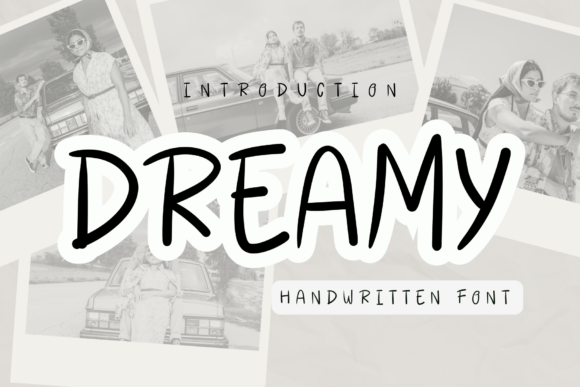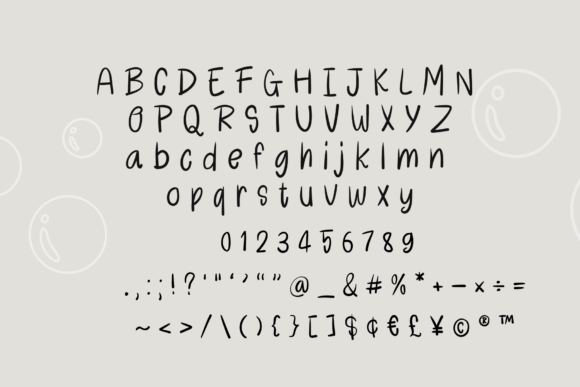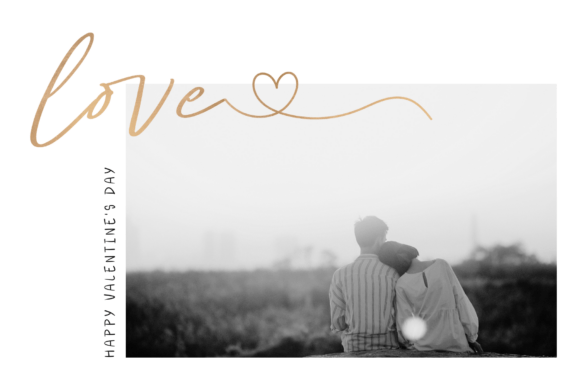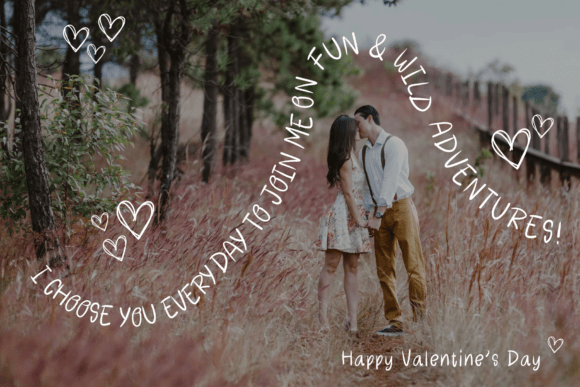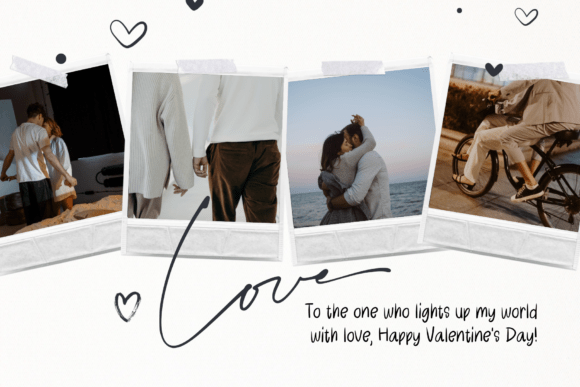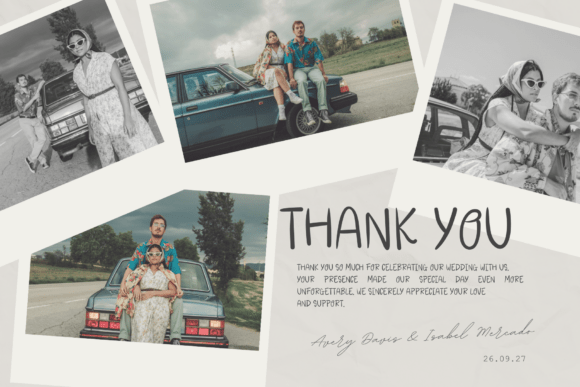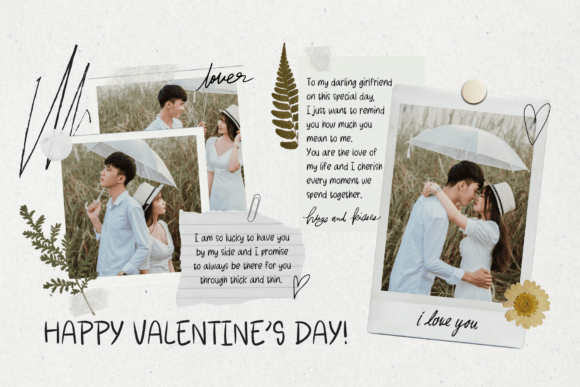
Unleashing Your Creativity with Dreamy Font
Have you ever found yourself sitting in a cozy café, sipping a warm cup of coffee, and letting your imagination run wild? Maybe you’re doodling in a notebook, scribbling down ideas that pop into your head, or simply enjoying the feeling of creating something from scratch. Whatever your creative moment, it’s a feeling we can all relate to – and it’s exactly what the Dreamy Font is designed to capture.
With its elegant, handwritten style, the Dreamy Font is perfect for taking notes, writing a diary, or making greeting cards. But its versatility doesn’t stop there – you can use it for a wide range of designs, from banners and social media posts to mugs, cards, and even shirts. Whether you’re a seasoned designer or just starting out, the Dreamy Font offers a valuable tool for bringing your ideas to life.
Dreamy Font Key Features
- Unique Characteristics: This font features a dreamy, whimsical aesthetic with flowing lines, subtle flourishes, and a touch of elegance, making it perfect for creative projects.
Dreamy Font Review
I’ve had the chance to work with Dreamy Font and I must say, it’s a unique and creative addition to any design project. Here are some of the things that stood out to me:
- ✨ The dreamy, ethereal quality of the font is perfect for designs that need a touch of whimsy. I’ve used it for a client’s branding project and it really helps to evoke the right atmosphere.
- ✨ The font is highly customizable, with a wide range of weights and styles available. This makes it easy to adapt to different design needs.
- ✨ The font is highly legible, even at small sizes. This makes it a great choice for body text or headings.
- ⚠️ The font may not be the best choice for designs that require a lot of precision or technical detail. The dreamy quality of the font can sometimes make it difficult to read.
Overall, I think Dreamy Font is a great choice for designers who want to add a touch of creativity and whimsy to their projects. While it may have some limitations, it’s definitely worth considering for the right project.
For the most effective use of Dreamy Font, pair it with soft, pastel colors and subtle textures. Common use cases include: wedding invitations, baby shower decorations, and social media graphics. Experiment with different font sizes and styles to create visual interest and depth.
Alternatives to Dreamy Font
Great Vibes is a beautiful, elegant script font that works well for titles, headings, and quotes. It’s ideal for creating a sense of sophistication and luxury. Great Vibes has a similar dreamy feel to Dreamy Font, but with a more refined and polished look.
Carolyna Pro is a modern script font that’s perfect for creating a sense of whimsy and playfulness. It’s great for use in branding, packaging, and advertising. While it has a similar flowing feel to Dreamy Font, Carolyna Pro has a more contemporary and edgy look.
Alex Brush is a handwritten font that’s ideal for creating a sense of warmth and personality. It’s great for use in invitations, quotes, and social media graphics. Alex Brush has a more rustic and earthy feel compared to Dreamy Font, but still conveys a sense of elegance and sophistication.